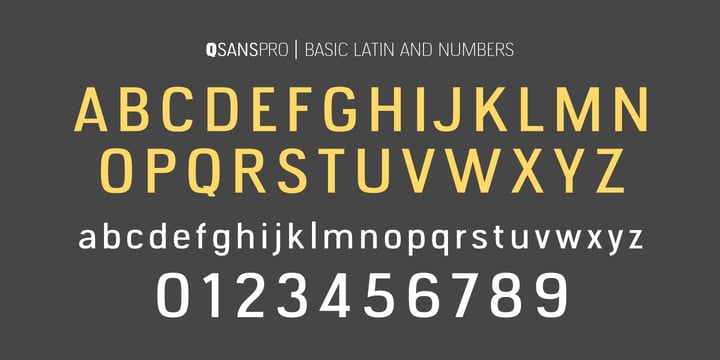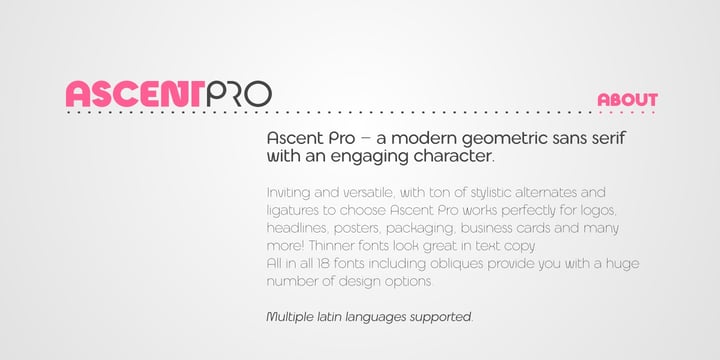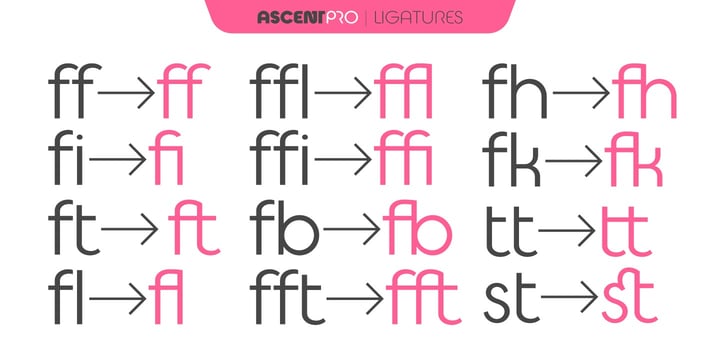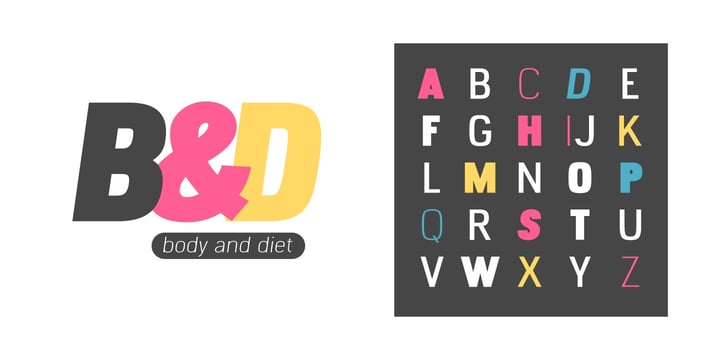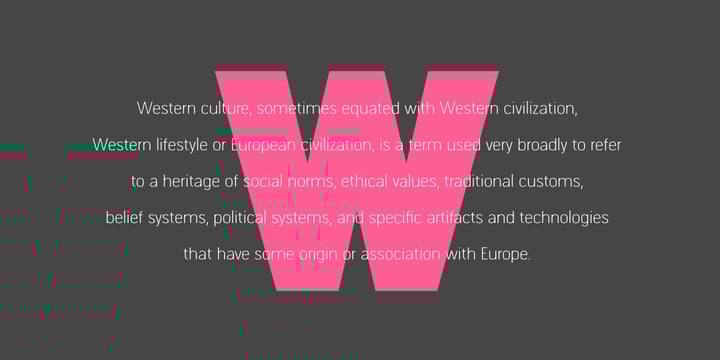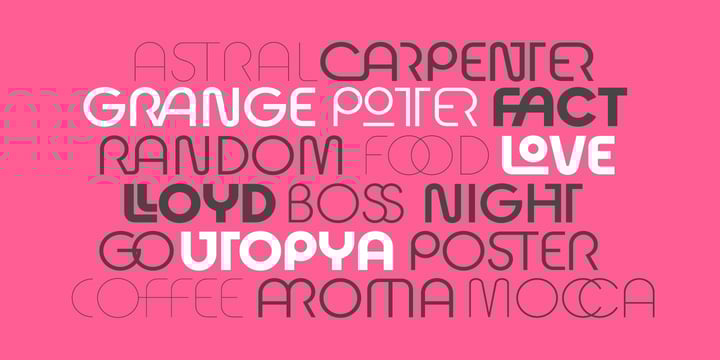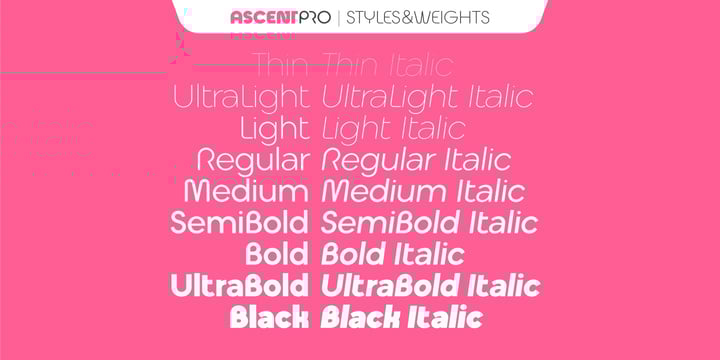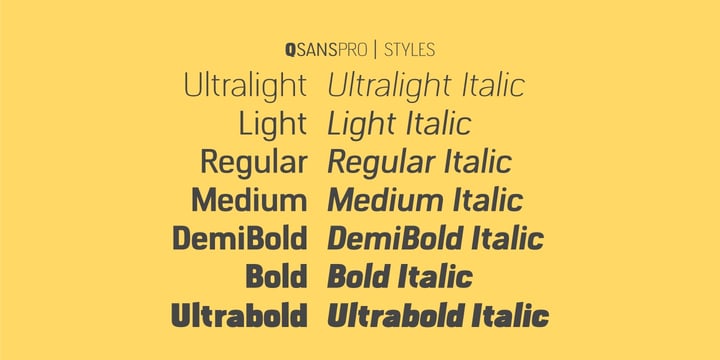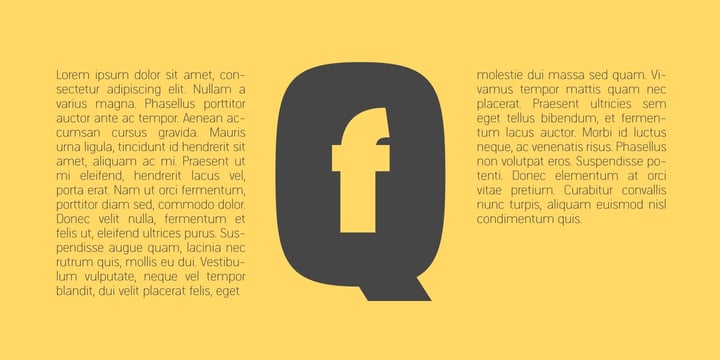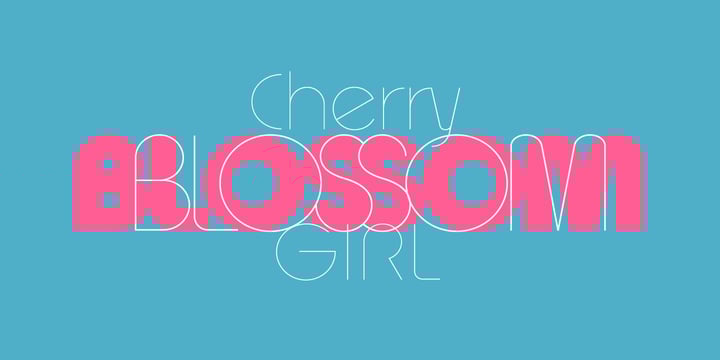
Modern Essentials Sans
Modern Essentials Sans is a curated collection of clean, contemporary sans-serif typefaces designed for maximum versatility. This bundle brings together modern, easy-to-use fonts that work beautifully across branding, editorial layouts, digital interfaces, and everyday design projects. With balanced proportions, smooth curves, and a refined minimal aesthetic, these typefaces offer a fresh, reliable foundation for any creative workflow. Perfect for designers who want a flexible set of modern sans fonts that stay timeless, stylish, and effortlessly functional.